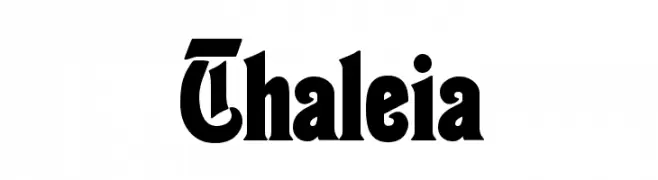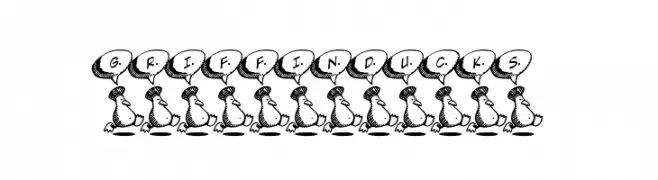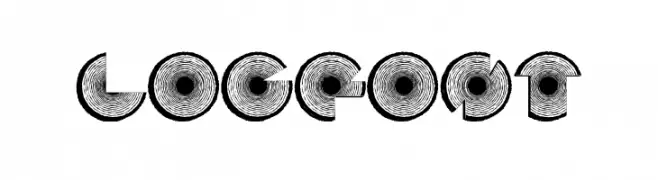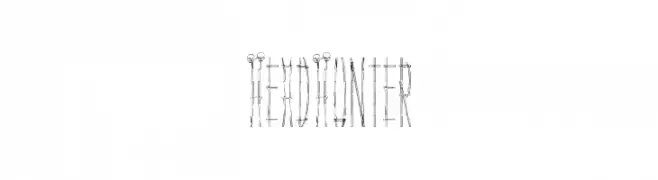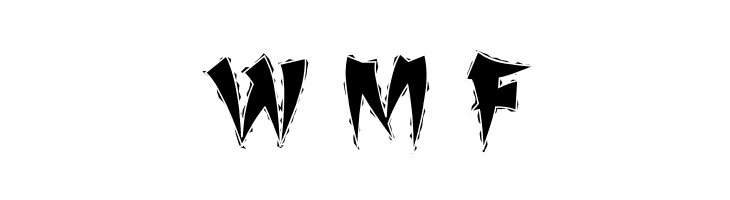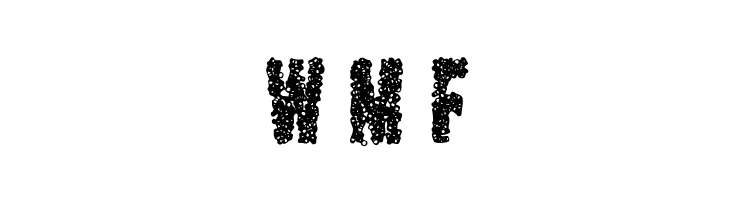
( Fonts by Daniel Gauthier )
A bold, jagged font with a woodcut-inspired, energetic style.
( Fonts by Harold Lohner - www.haroldsfonts.com )
A bold, gothic-inspired font with sharp serifs and a dramatic presence.
( Fonts by Daniel Gauthier )
A playful, cartoonish font with characters in speech bubbles held by ducks.
( Fonts by Daniel Gauthier )
A bold and ornate blackletter font with historical elegance.
( Fonts by Daniel Gauthier )
A decorative font with circular, spiral designs creating a bold visual impact.
( Fonts by Daniel Gauthier )
A skeletal-themed decorative font with intricate bone-like characters.
( Fonts by Daniel Gauthier )
A bold, decorative font with intricate circular patterns.